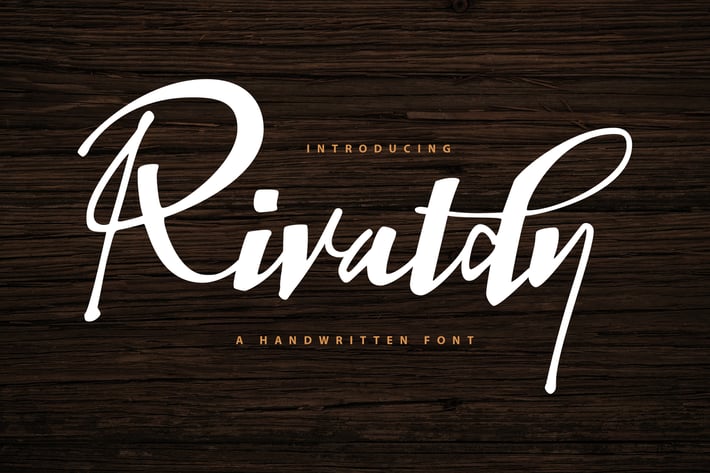
Rivaldy | A Handwritten Font
Rivaldy | A Handwritten Font with a calligraphy style, So beautiful on invitation like greeting cards, branding materials, business cards, quotes, posters, and more!